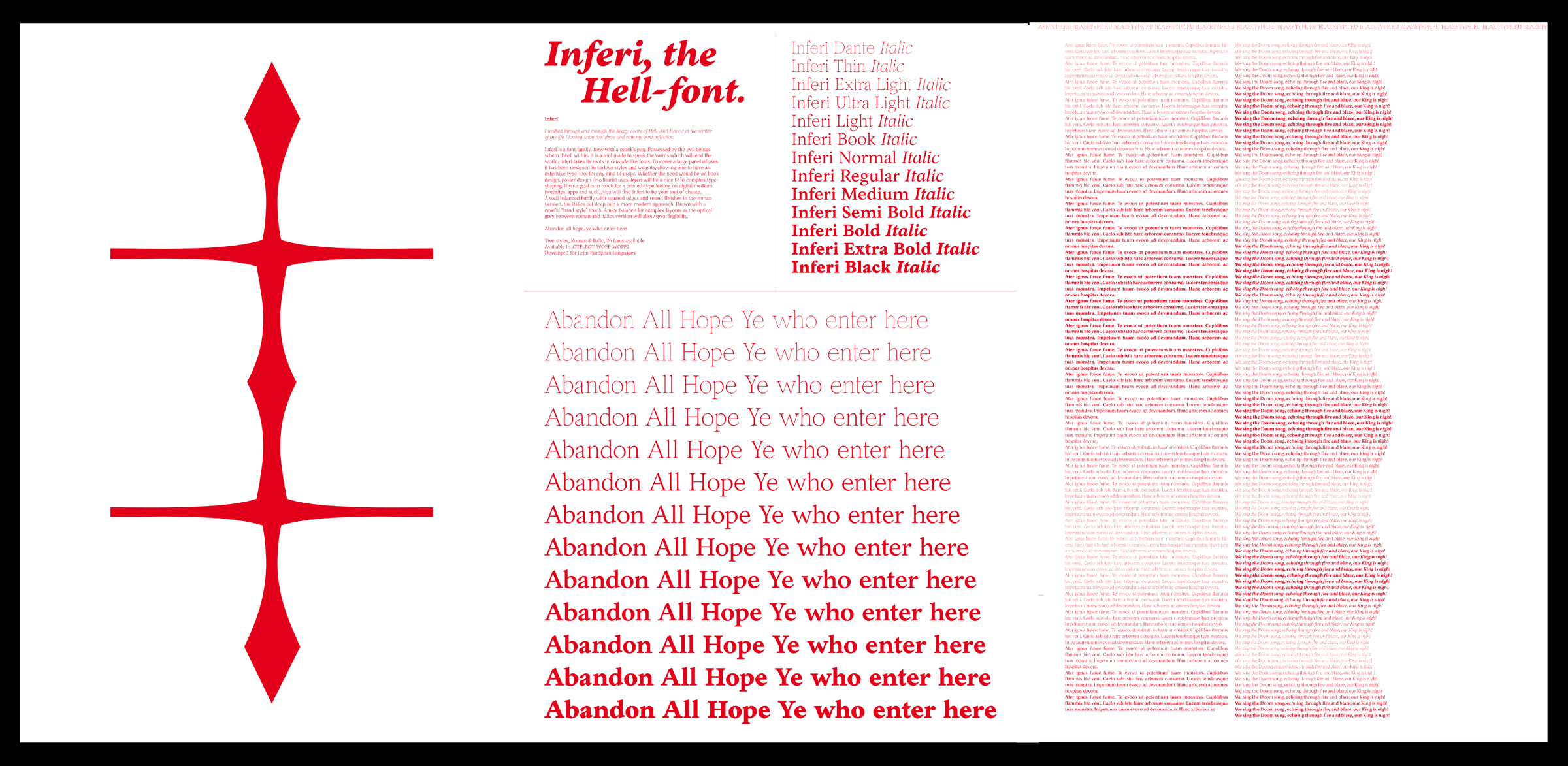
Back Story: Here’s the first scary quote, straight from the mouth of Blaze Type’s Matthieu Salvaggio: “We went to Hell. As we wandered around, we gathered strange glyphs carved upon walls made of dark stones. We came back with a typeface. It is a font family drawn with a monk’s pen, possessed by evil beings. Inferi is a tool made to speak the words which will end the world.”
Oh dear. On a less terrifying note, the process of designing Inferi started when the good people at this French type foundry wanted to design a historical/classical font for editorial use because no such thing existed in their catalog. Yet.
Why is it called Inferi? Inferi means “Hells,” and the name is a sort of tribute to Dante’s Divine Comedy.
On that note, here’s the second scary quote from Salvaggio: “The lightest weight of the family is super thin and twisted, a tortured soul like Dante journeying through the nine circles of Hell. The Black version is dark and cold; it embodies the representation of Satan ruling in the center of Hell. We released another Christian-inspired font, Apoc, a year ago. Although it looks more devilish than Inferi, I like to believe that the very root of the concept of Inferi embodies all things evil and satanic.” Sister! Fetch the holy water!
What are its distinguishing characteristics? This font is inspired by the 17th century super-legible Garalde typefaces designed by masters such as Claude Garamond and the Venetian printer Aldus Manutius for use in books. However, Inferi throws in its own twist: its letterforms are a bit wider and its x-height is taller than what’s seen in a typical Garalde. There is a great deal of contrast between the roman and italic versions that creates a lovely optical gray over long passages of type.
“Inferi is a bridge between calligraphy and letterforms carved in stone,” Salvaggio says in his third, not-so-scary quote. “The overall design tends to break between smooth curves and straight angles—I love the lowercase ‘a’ for this reason. The italic lowercase ‘y’ looks like it’s throwing itself forward; in general, the italics were drawn using an even more radical approach.” Indeed, there are some charming little oddities in the italics—for example, the roman lower case ‘r’ has an almost-ball terminal that becomes sharp and angular in the italic version.
What should I use it for? The weights from Book to Bold are useful for editorial projects, both in print and on screen.
And now, for a final, totally non-scary quote from the type designer: “If you are keen on designing posters, large-type layouts for landing pages, video, mapping and such, both the lightest and boldest weights (Dante, Thin, Extra Light, Ultra Light, Extra Bold, Black) will be awesome to play with.”
What other typefaces do you like to pair it with? Inferi’s dark side suddenly feels charming and roguish when paired with a fairly innocent-looking sans, such as Theinhardt, which comes in a wide variety of weights to mix and match for maximum contrast. Remember: without light, there are no shadows.